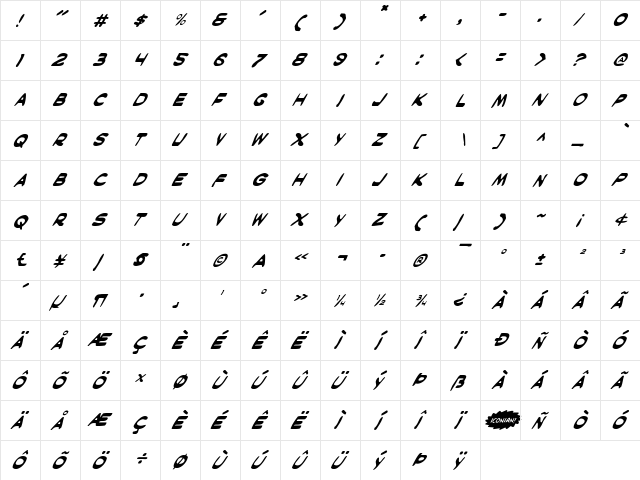
Masked Marvel Italic Italic
Design Context for Masked Marvel Italic Typeface
Masked Marvel Italic is a composed and adaptable typeface that performs quietly and consistently across a wide range of design contexts. Its italic angle brings a sense of urgency and motion to the letterforms.